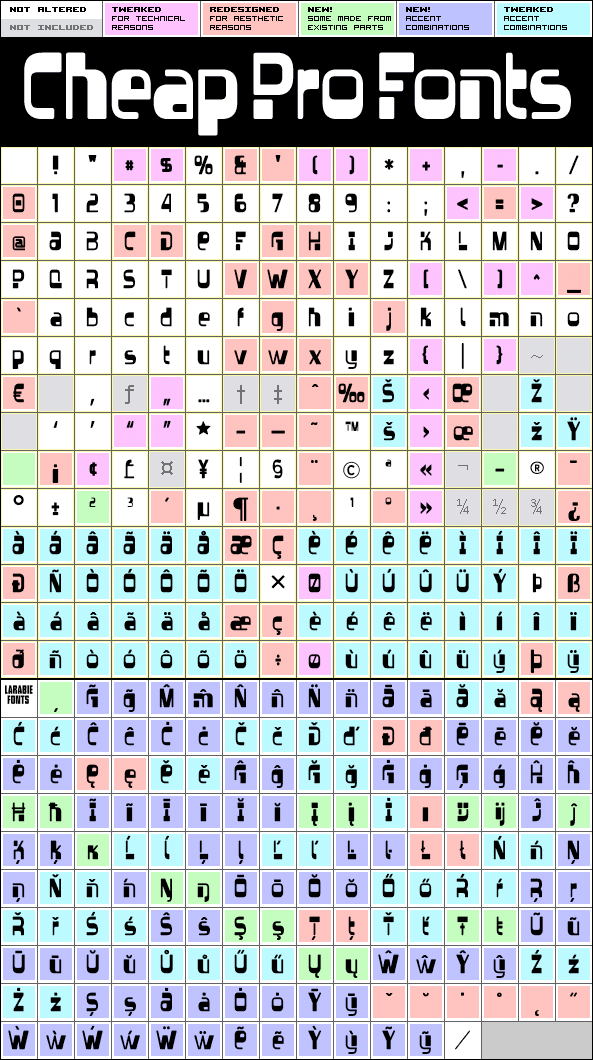
A typical space-age hippie funny font. :) I have fattened up the diagonal letters (VvWwXxYy), cleaned up and tweaked a few other glyphs, and expanded the already quite large character set (correcting a couple of bad ones in the process). Font is now ready for international psychedelica. ;) Ray Larabie says: "The idea of 1960’s magnetic ink fonts taken to silly new heights."
Vectroid Pro is a professionally reworked font that contains an extended character set for setting of text in 65 languages requiring more than the basic A-Z!